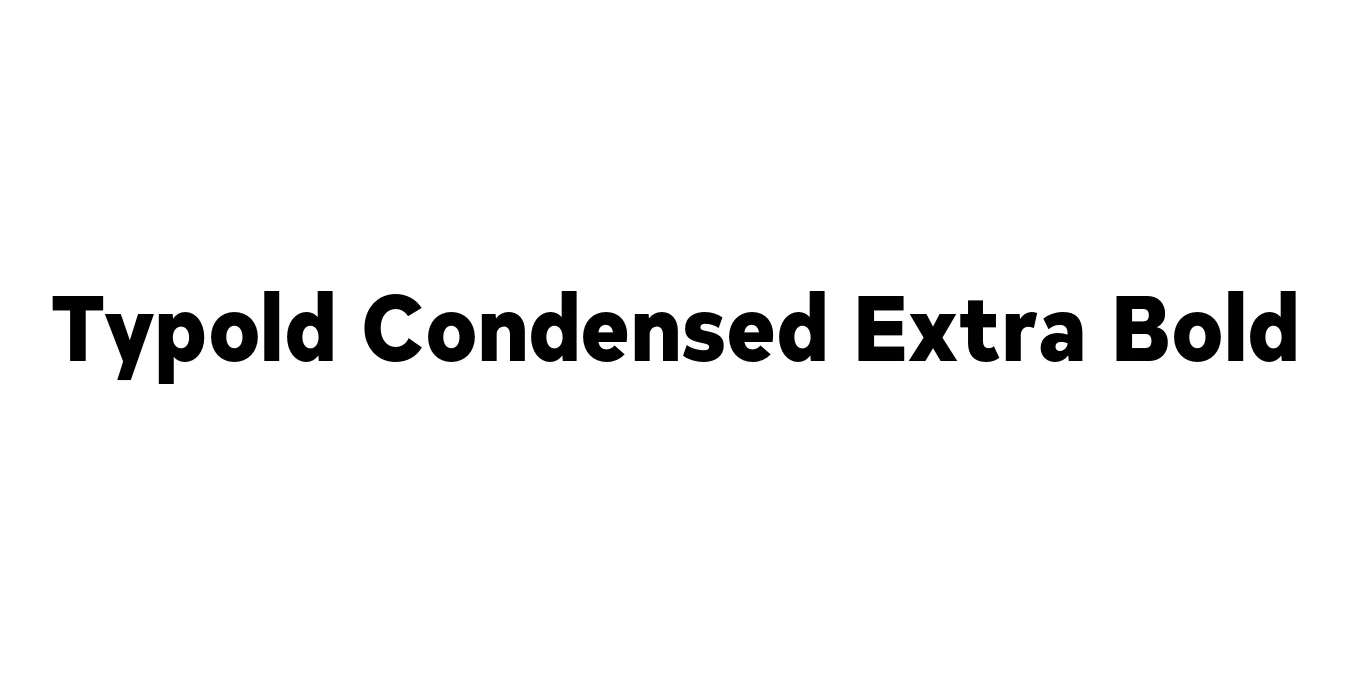
Typold Condensed Extra Bold
Designed by Jonathan Hill
| Category | Geometric Sans-Serif |
| Designer | Jonathan Hill |
| Similar Fonts | Akzidenz-Grotesk Condensed, DIN, Gotham Condensed |
Typold Condensed Extra Bold is a sophisticated geometric sans-serif designed by Jonathan Hill for the foundry The Northern Block. It represents a meticulous re-evaluation of the original Typold family, focusing on improved mathematical balance and refined letterforms. This specific weight offers a powerful, vertical presence that maximizes impact while maintaining a compact horizontal footprint, making it ideal for high-pressure layout environments.
The typeface is characterized by its large x-height and clean, modern construction that balances mechanical precision with humanist clarity. Typold Condensed Extra Bold is particularly effective in digital environments and print media where space is at a premium, providing a contemporary aesthetic that conveys strength, reliability, and professional modernism.
Typold Condensed Extra Bold Best Uses
Perfect for commanding attention in magazine layouts and web headers.
Ideal for creating strong, authoritative logos and corporate identities.
Excellent for space-efficient user interface elements.
High-impact choice for bold event graphics and advertising.